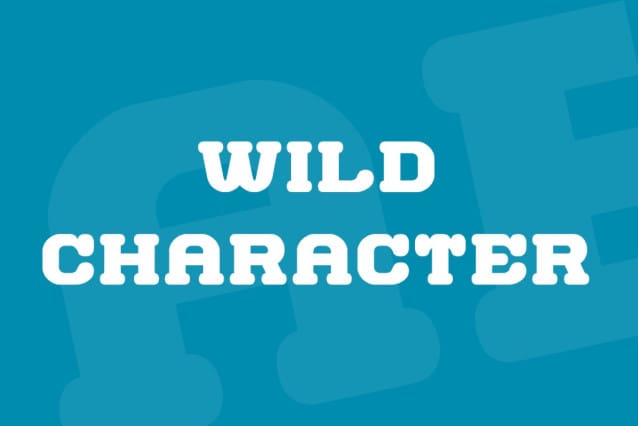
Wild Character Font, Suitable for any design needs : logo, branding, modern advertising design, logos, poster quote, book / cover Title, editorial design, website / blog, card, t-shirts, and any hand-lettered needs.
Wild Character Font
| Classification: | Display Fonts, Serif Fonts, Slab Serif Fonts |